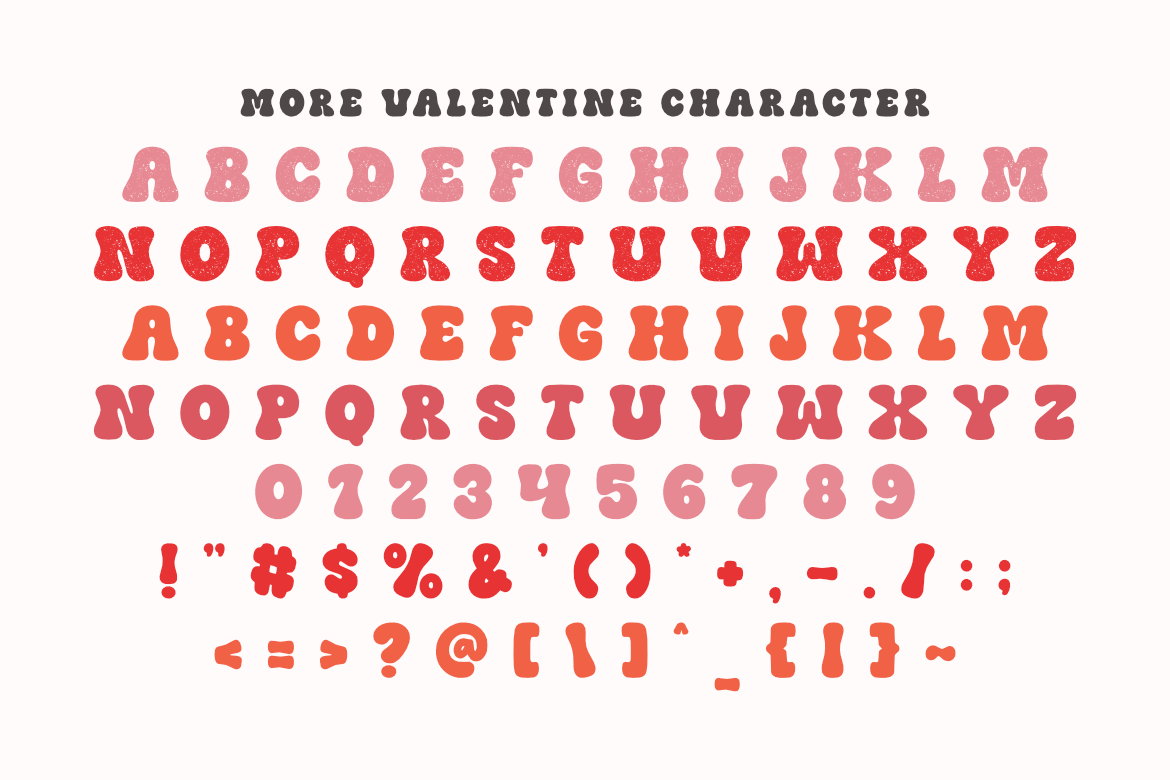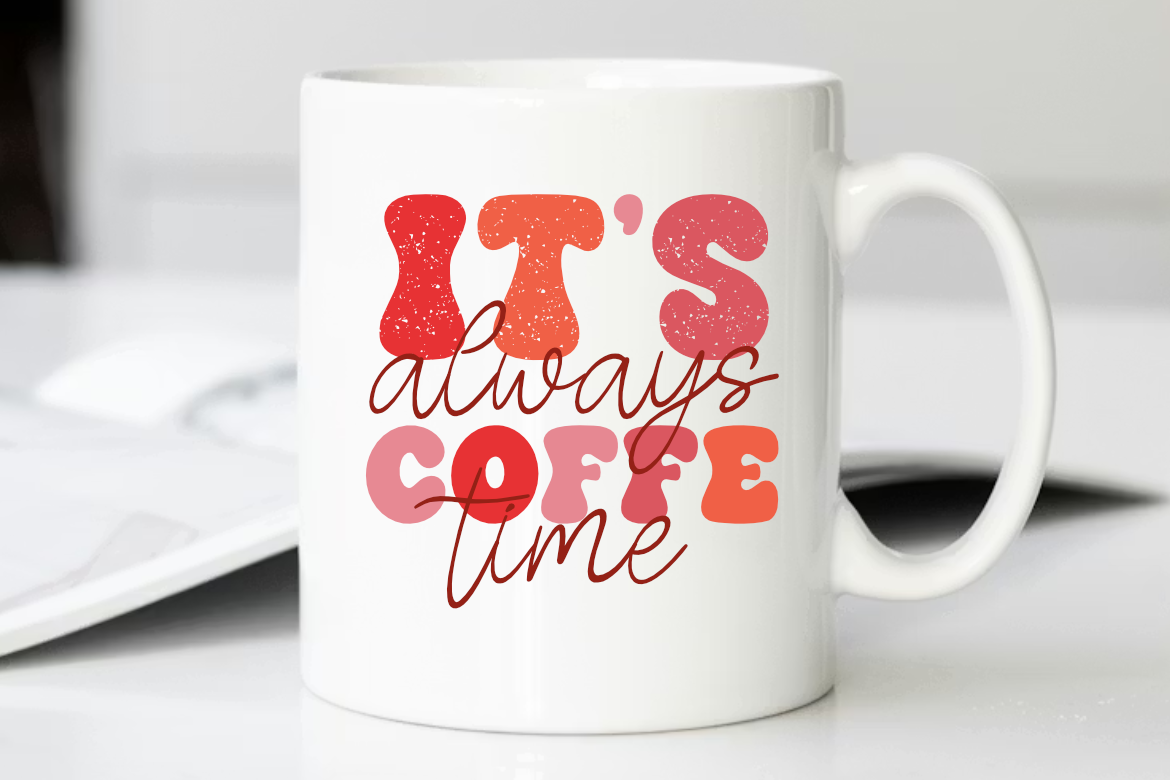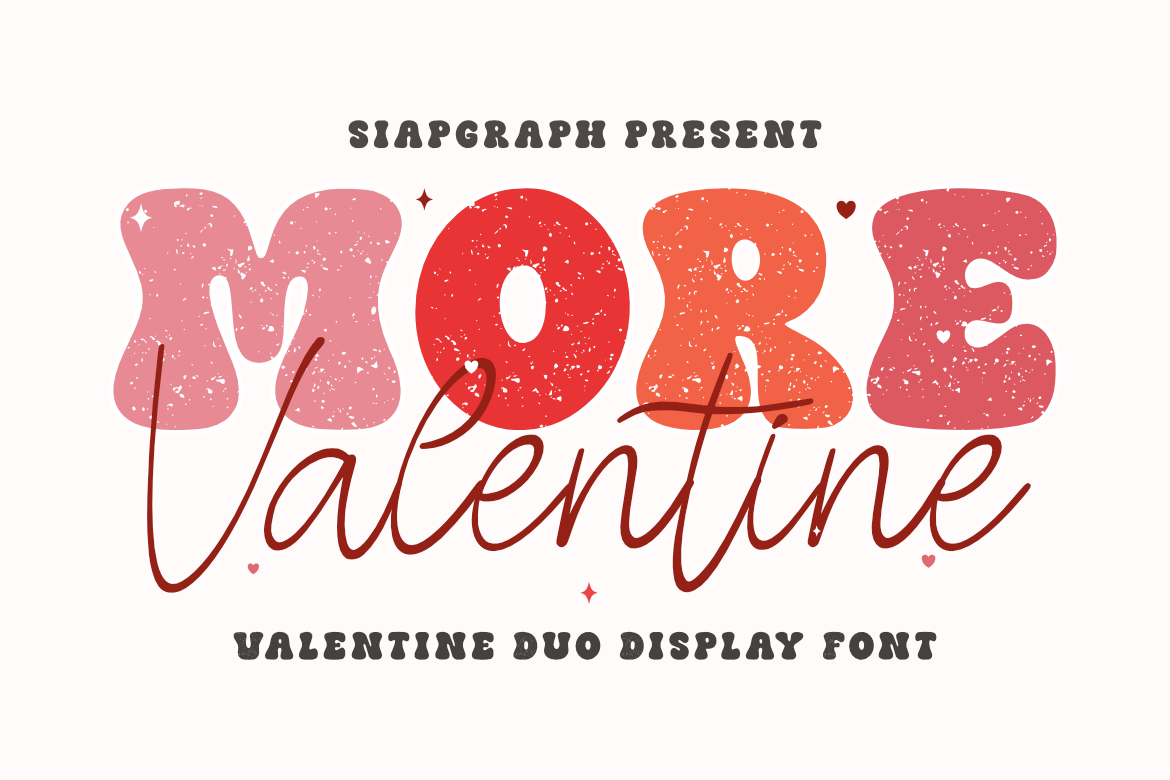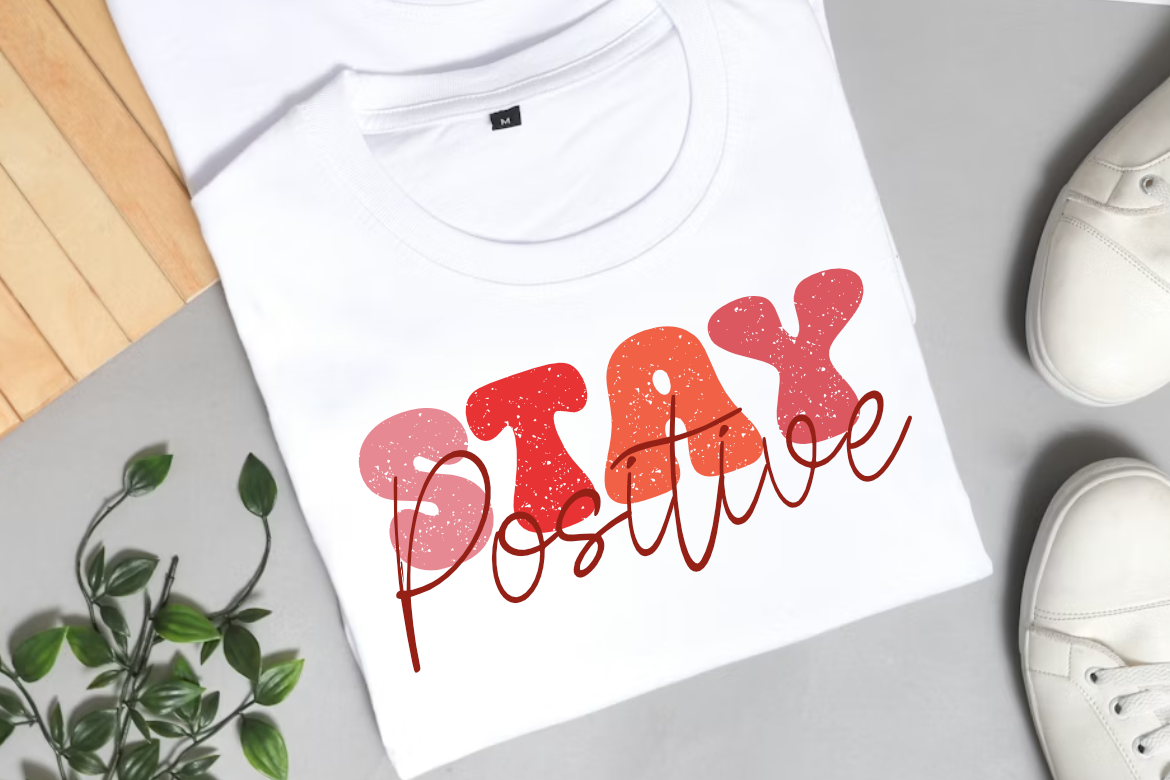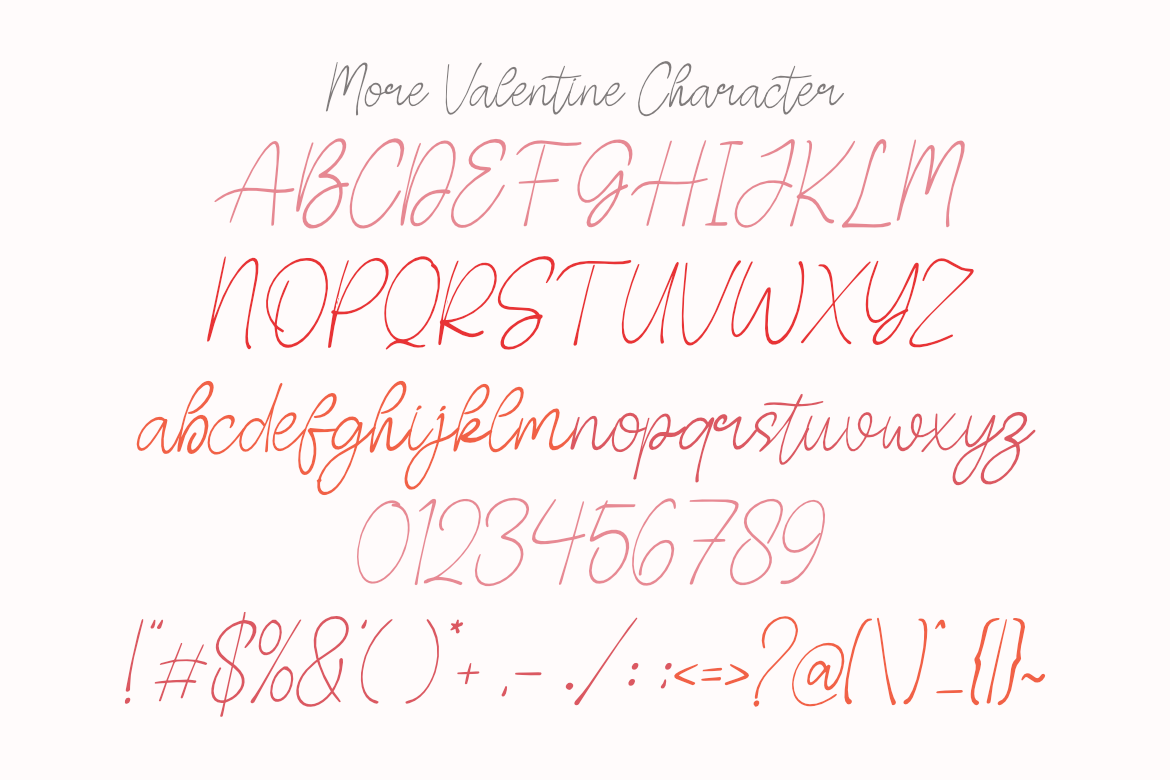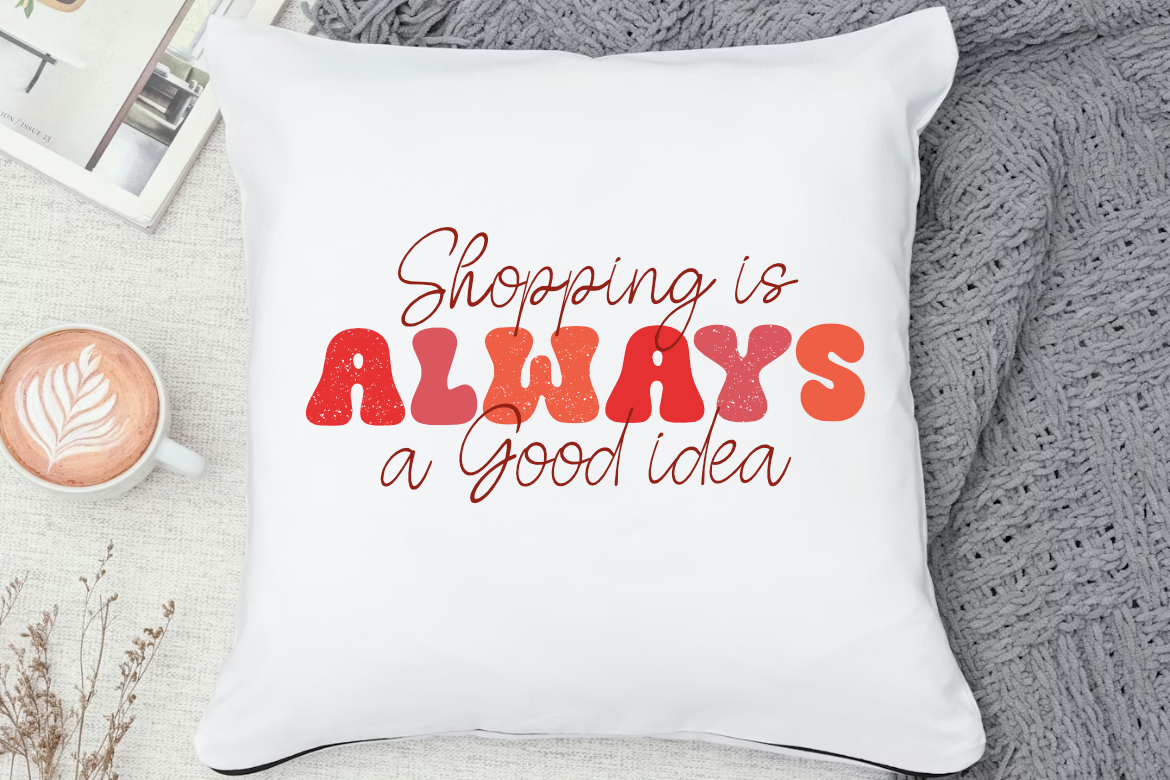
More Valentine - Groovy Handwriting Duo Font for Cricut and Sublimation
Retro Groovy Handwriting Display Font for Cricut and Sublimation
More Valentine is a playful retro duo display font inspired by the groovy 70s aesthetic and the nostalgic charm of vintage romance. This unique typeface combination features a bold, textured bubble font paired with a sweet, elegant monoline script, allowing you to create perfectly balanced designs with a handcrafted feel.
This font is a must-have for the Craft, POD (Print On Demand), and DIY communities. Its chunky letters and smooth script lines are designed for easy cutting, weeding, and high-quality printing, ensuring your projects look professional every time.
Perfect for: creating stunning SVG cut files, custom Valentine’s Day t-shirts, adorable stickers, personalized mugs, romantic greeting cards, wedding stationery, social media quotes, tote bags, and nursery wall art. It is also ideal for sublimation projects and digital scrapbooking layouts that need a touch of vintage warmth.
Great for holiday themes such as Valentine's Day, Galentine’s Day, Anniversaries, Weddings, and Mother’s Day, adding a charming, romantic, and joyfully retro vibe to your festive creations!